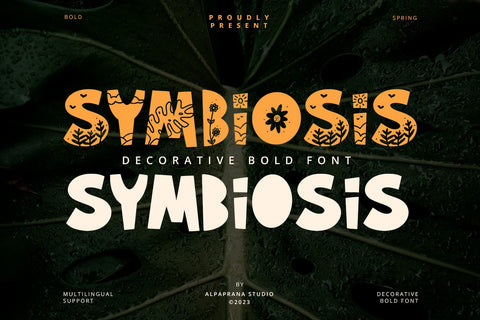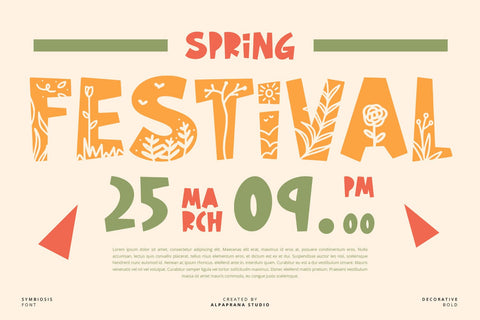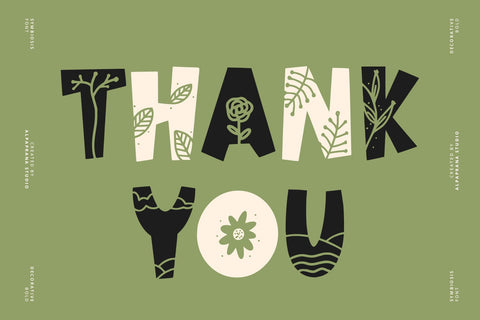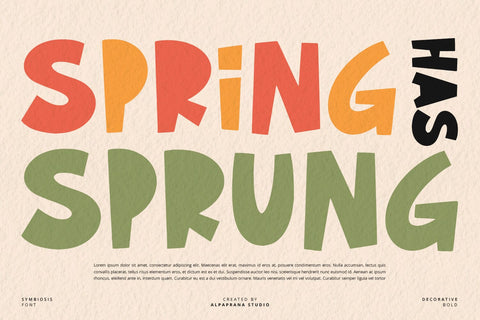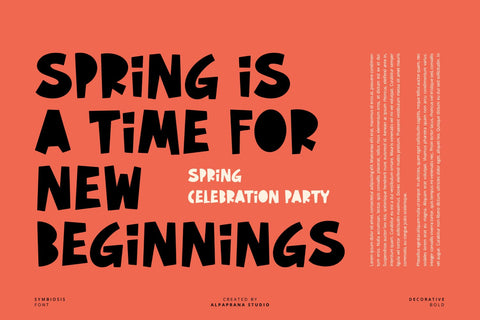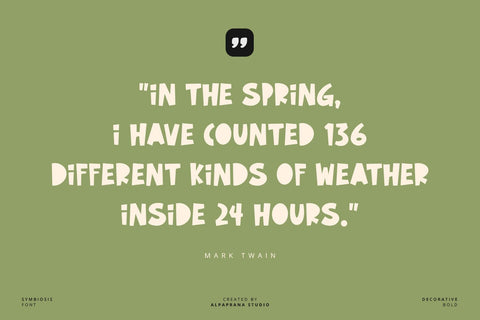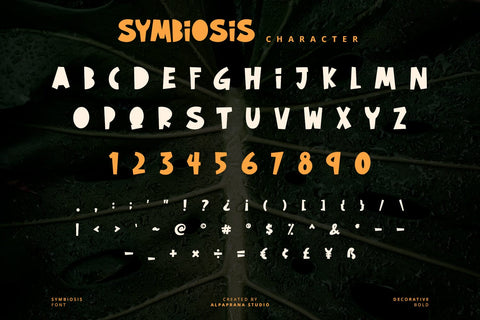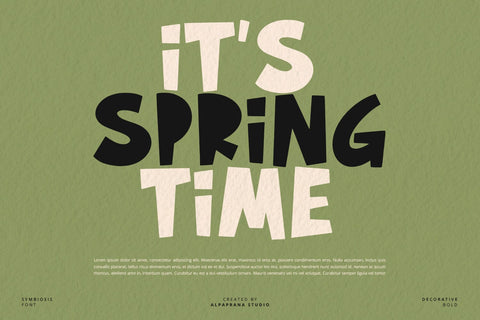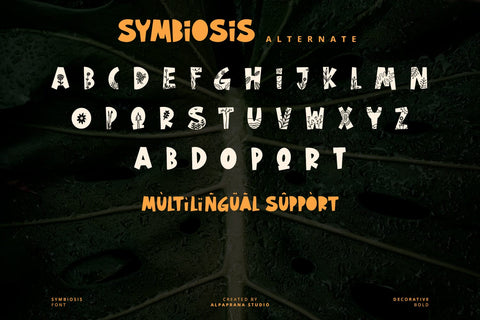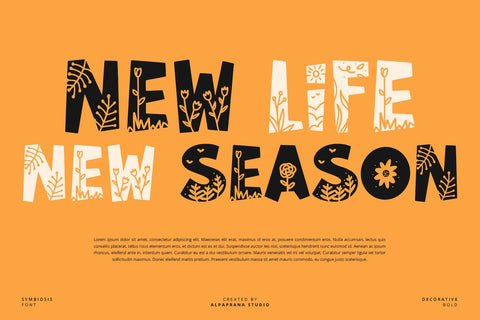
Symbiosis - Decorative Font
Symbiosis is a decorative display font with authentic and playful feels. It will be perfectly used for Branding, Logo Design, Lettering, Logotype, Clothing, Poster, magazine, packaging, posters, shopping bags, t-shirts, book covers, photography, special events and other design project.